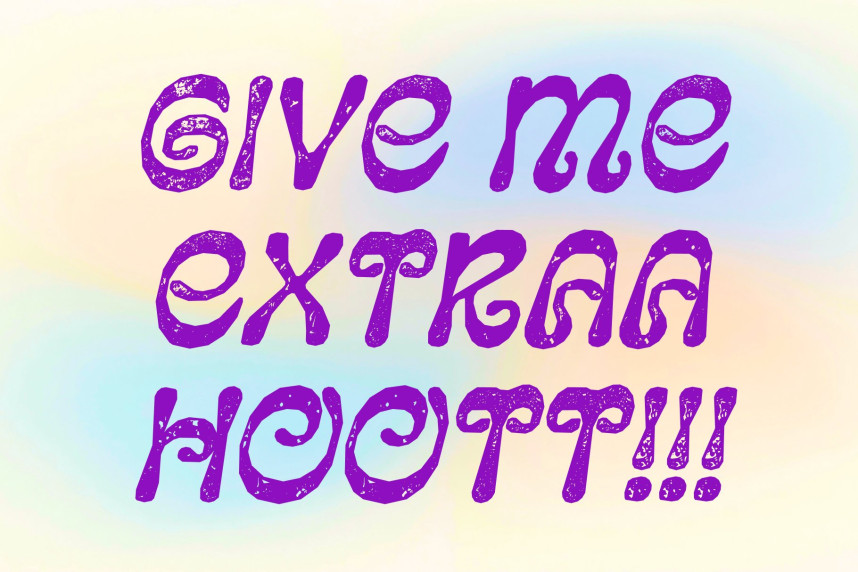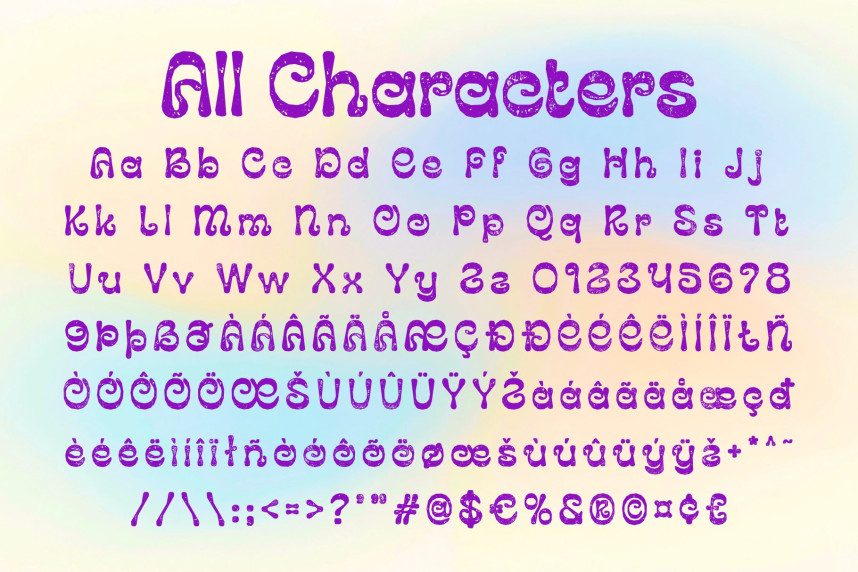
CS Rianty Stamp Font
CS Rianty Stamp Font – Modern Psychedelic Display Font: Where Hypnotic Flow Meets Vintage Stamp Texture
Fluid, Hypnotic Forms with Unconventional Character
This is a modern psychedelic display font featuring fluid, hypnotic, and unconventional letterforms that bring a groovy, artistic, and otherworldly personality to every design. Its flowing strokes and expressive shapes create a captivating visual rhythm, making the typeface feel dynamic, imaginative, and full of psychedelic energy.